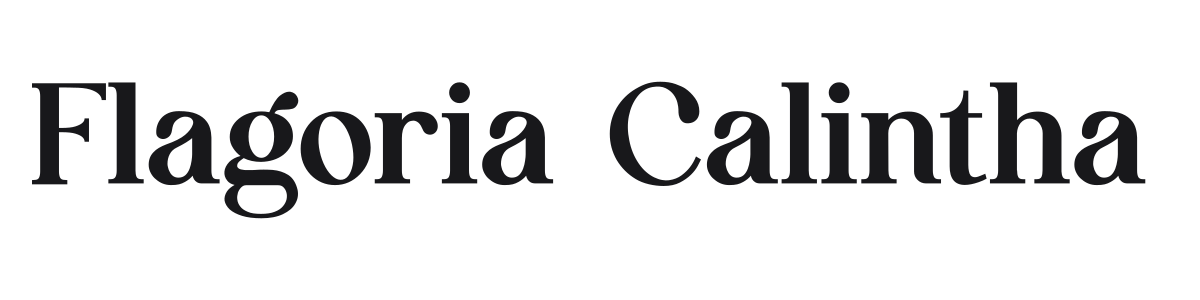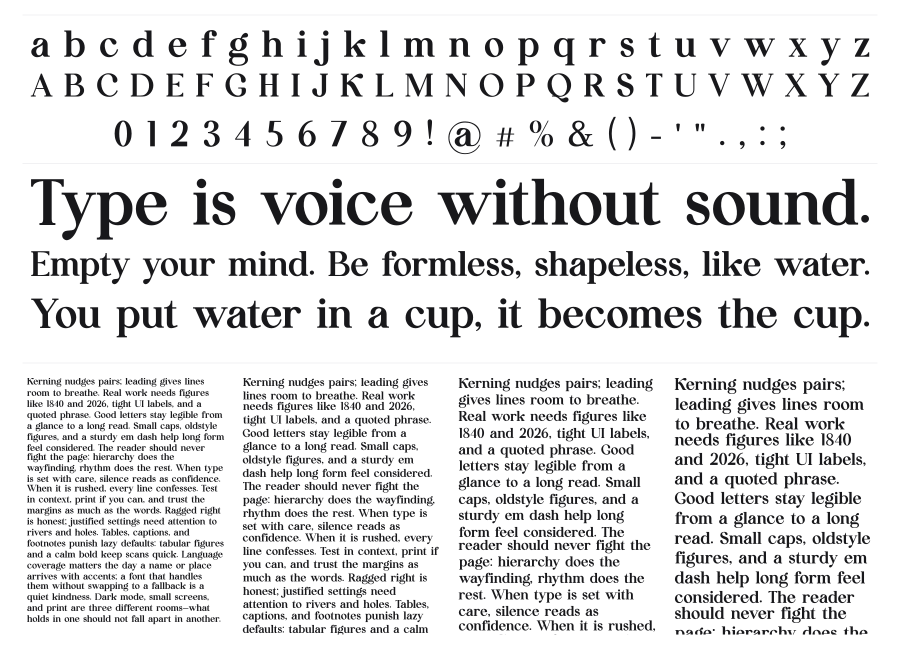
Flagoria Calintha
Flagoria Calintha is a bold Didone-inspired serif with dramatic stroke contrast and generous, open proportions. The thick stems paired with hairline serifs and ball terminals give it both editorial authority and a sense of warmth. It reads confidently at large sizes, making it a strong choice for fashion branding, magazine headers, and luxury packaging.